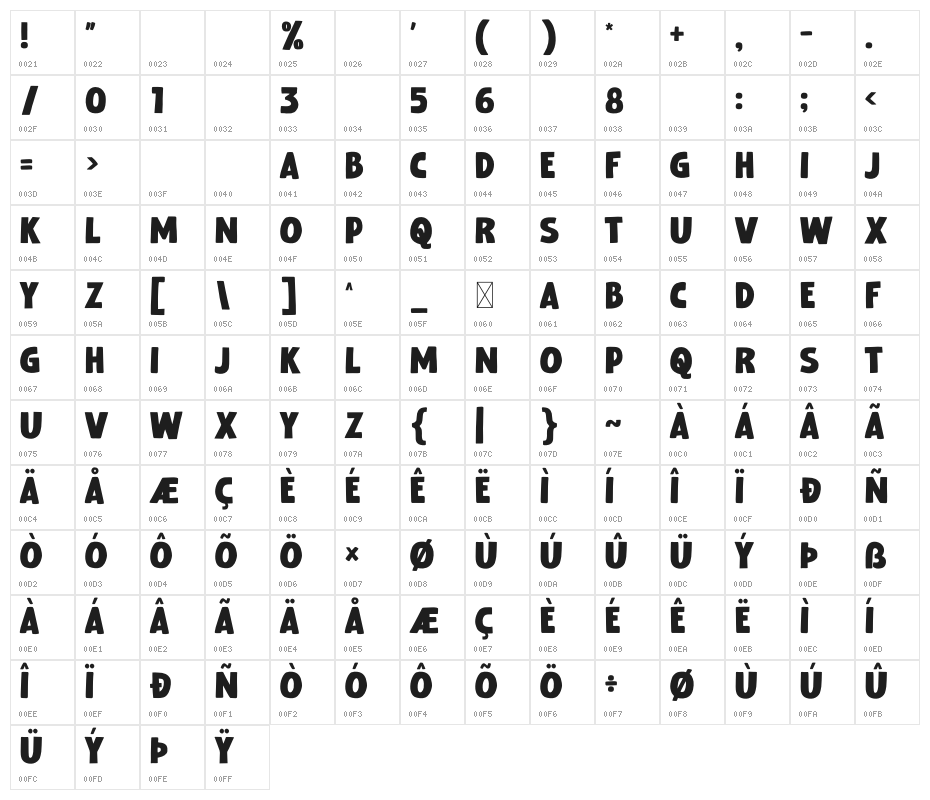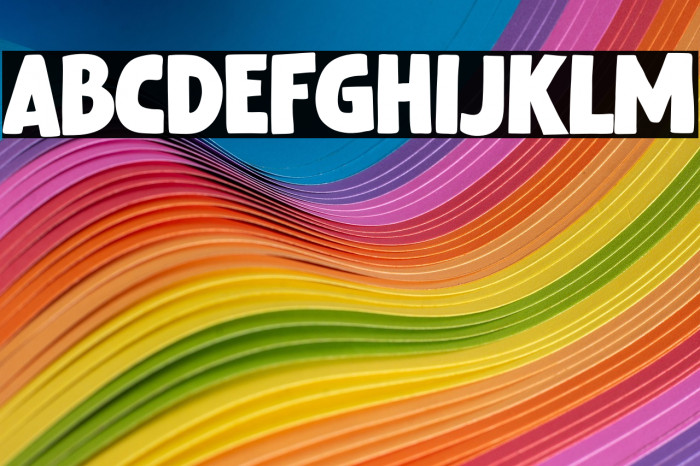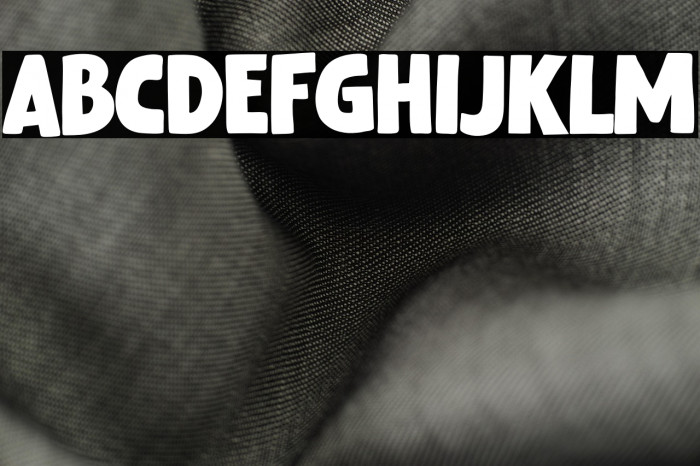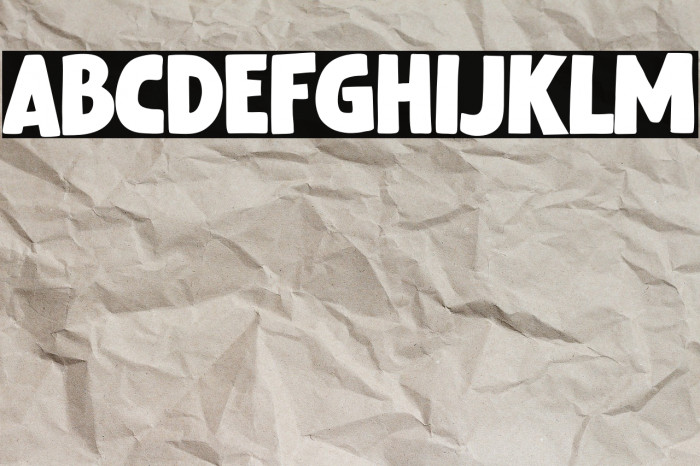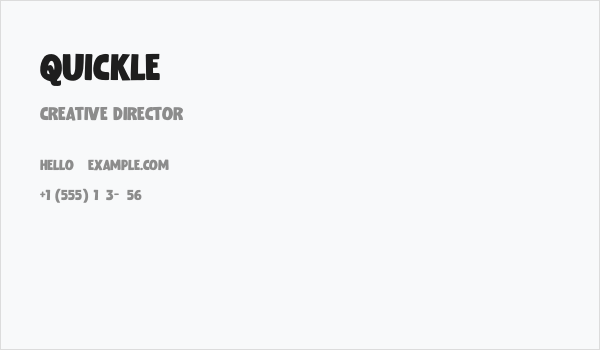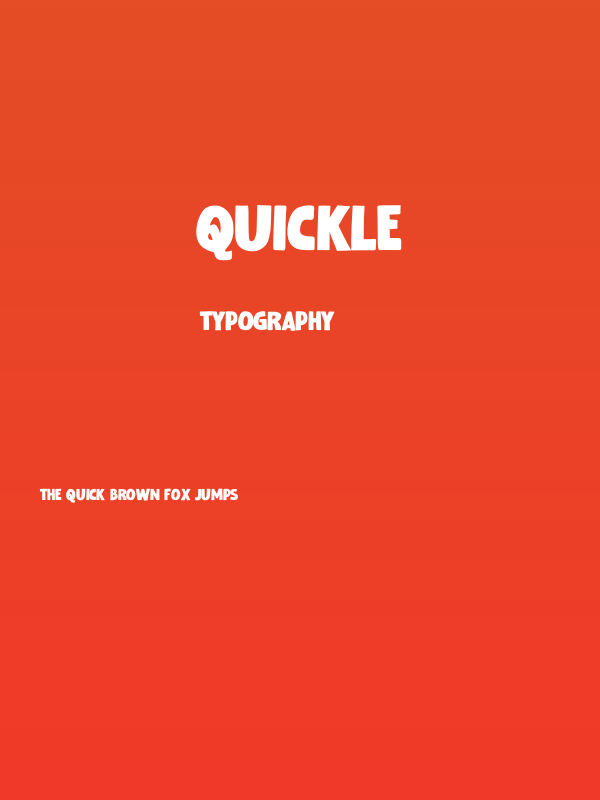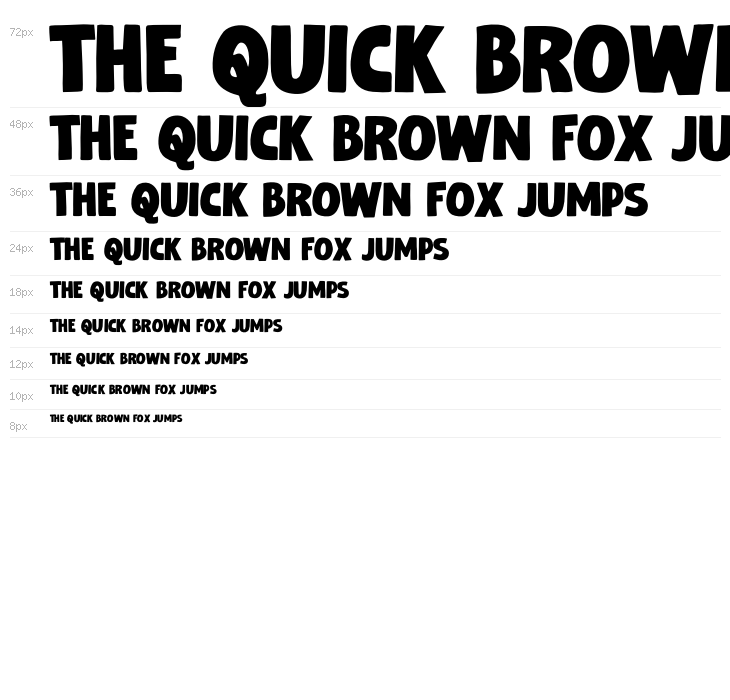
Quickle Font
Quickle Description
This bold and playful font features thick, rounded characters that exude a sense of fun and energy. The letters are uniformly bold with a slightly irregular, hand-drawn appearance, giving them a unique and approachable feel. The uppercase and lowercase letters maintain a consistent style, while the numbers and special characters complement the overall design. The font's boldness makes it highly legible, even at smaller sizes, and its whimsical style is perfect for projects that require a touch of personality and creativity.
| Overall Style | Playful, Whimsical |
| Proposed Projects | Ideal for children's books, playful branding, posters, and creative advertising. |